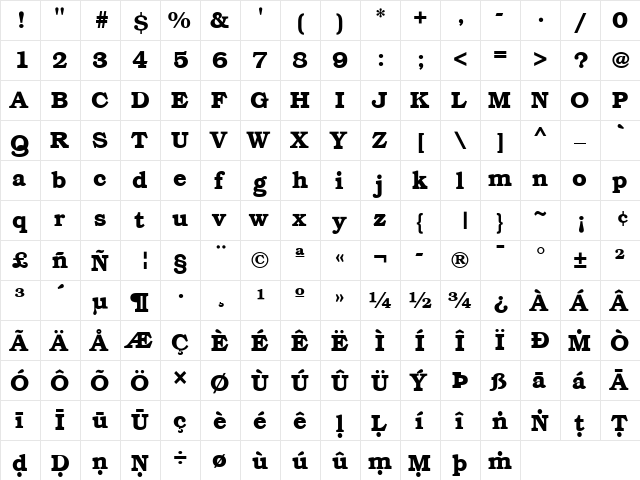
Pali Bookman Regular
| Foundry | by URW |
Design Context for Pali Bookman Typeface
Pali Bookman is a composed and adaptable typeface that performs quietly and consistently across a wide range of design contexts.